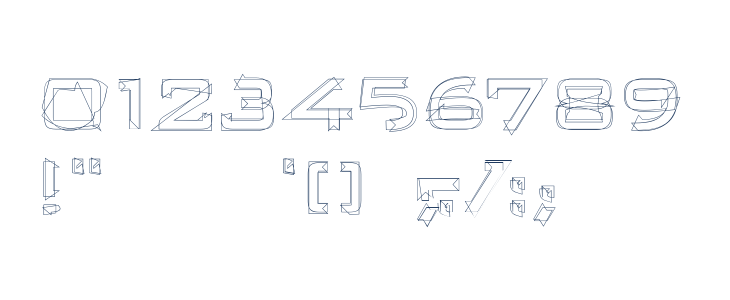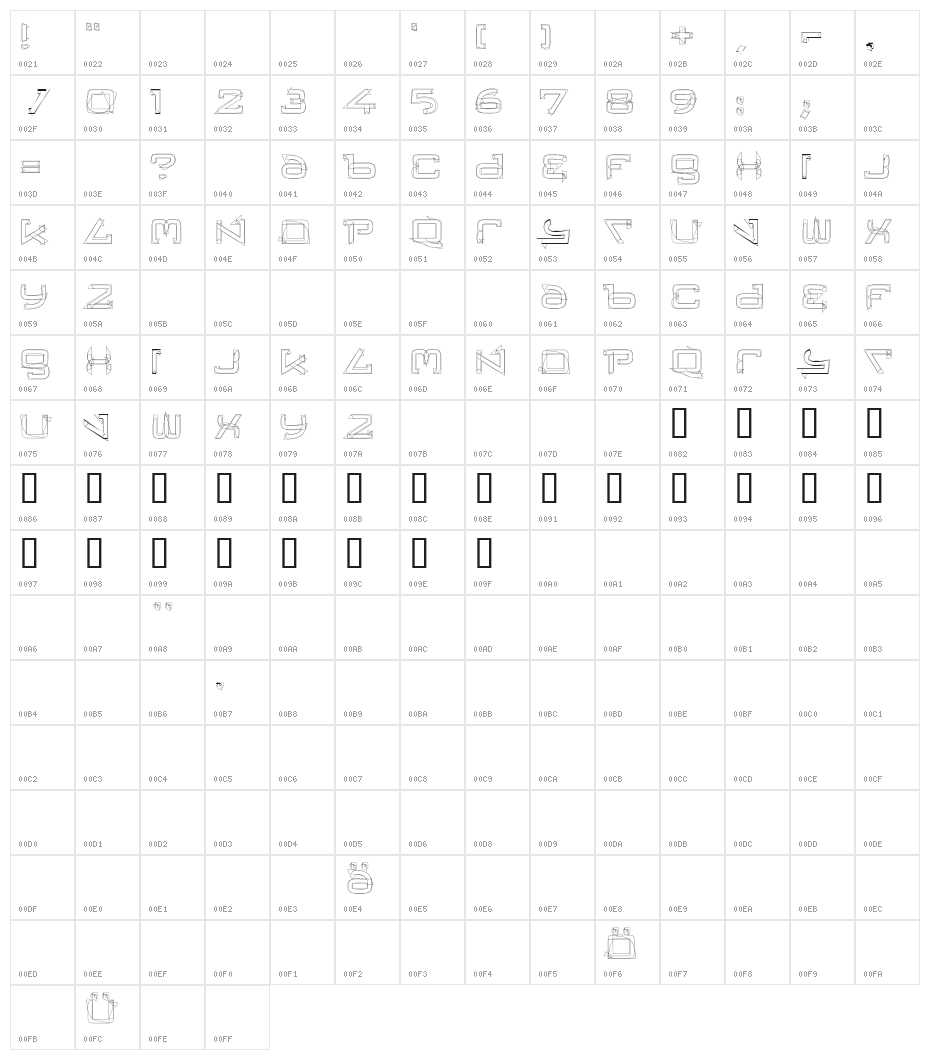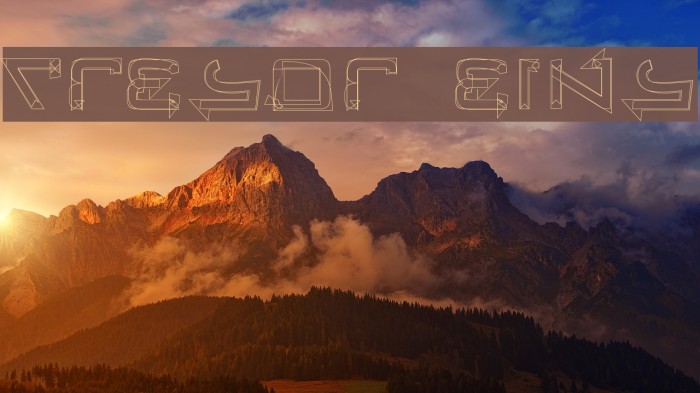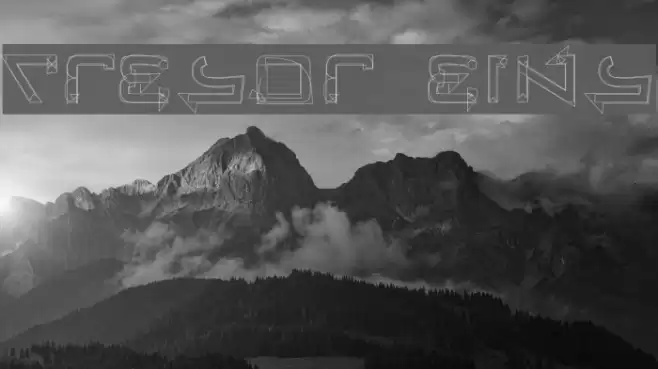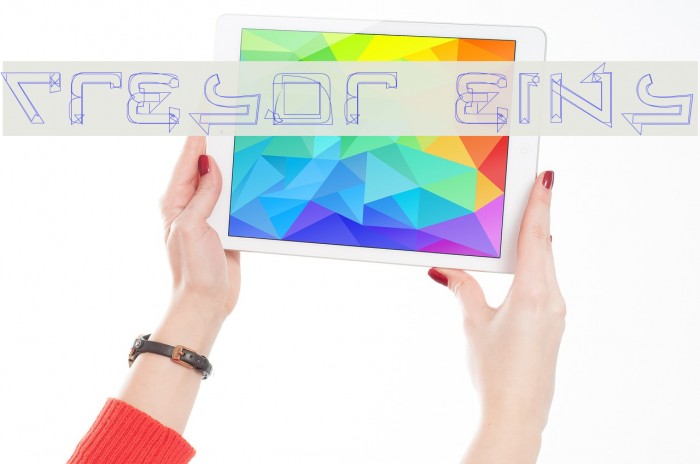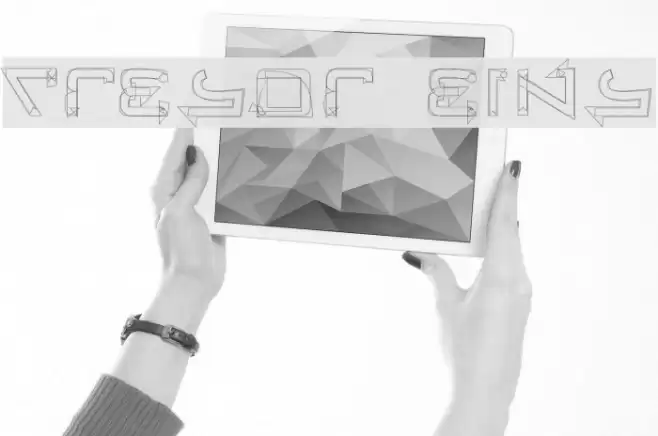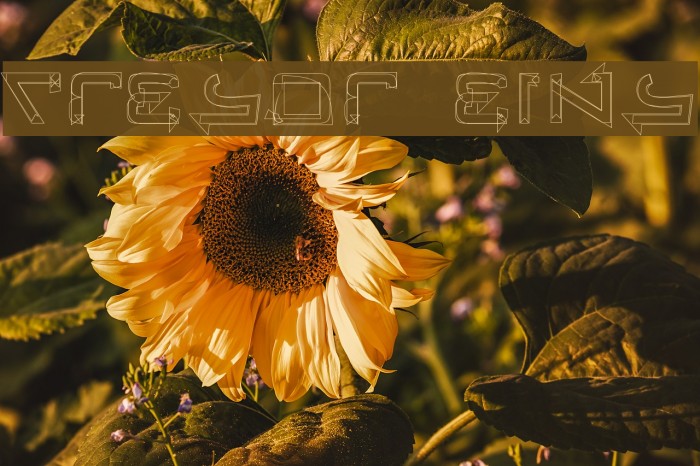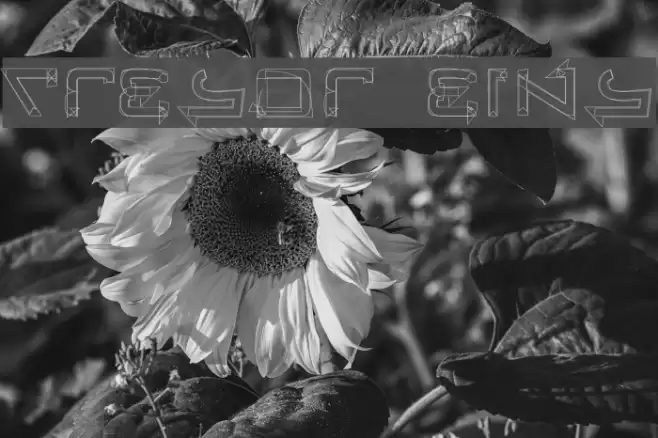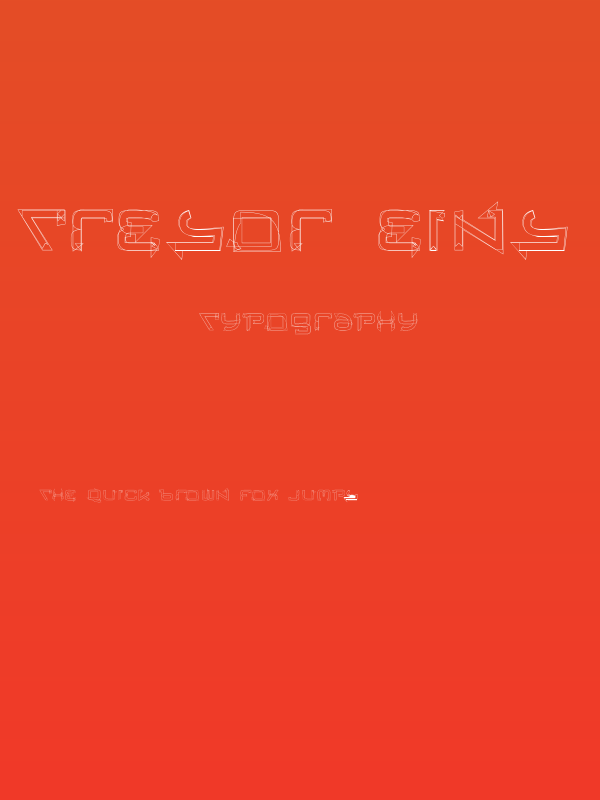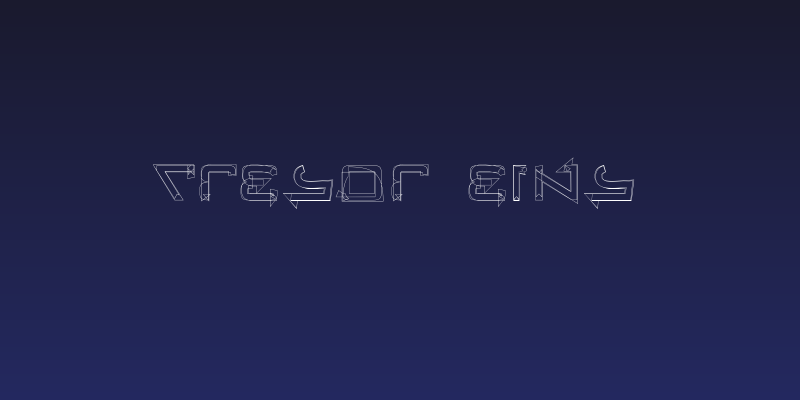
Tresor Eins Font
Tresor Eins Description
This font features a highly geometric and angular design, characterized by sharp edges and a futuristic aesthetic. Each character is constructed with a series of interconnected lines and shapes, creating a complex and intricate appearance. The letters and numbers are uniform in height, giving a consistent and cohesive look across the typeface. The unique style is reminiscent of digital or sci-fi themes, making it stand out with its bold and distinctive presence. The font's design elements suggest a sense of movement and direction, with arrows and pointed tips integrated into the characters, enhancing its dynamic and modern feel.
| Proposed Projects | Ideal for sci-fi themed projects, tech branding, video game titles, and futuristic posters. |